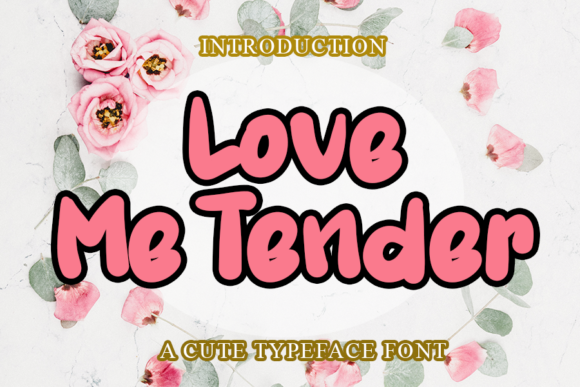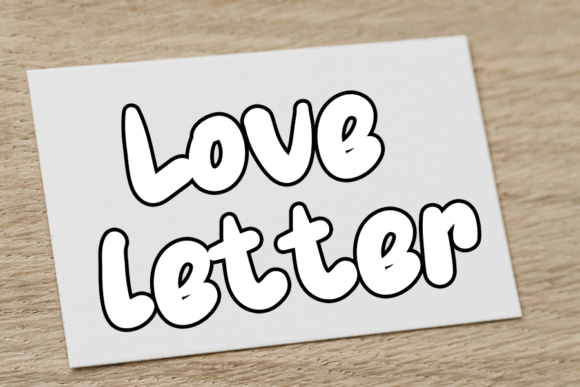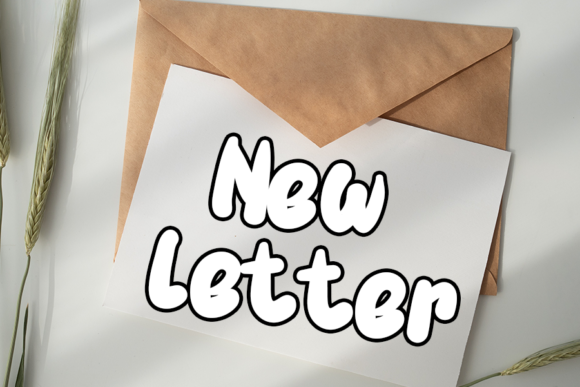
Love Me Tender Font
About Love Me Tender Font
Love Me Tender is a bold and fun handwritten font. Use it to make your ideas even more realistic and create spectacular designs!